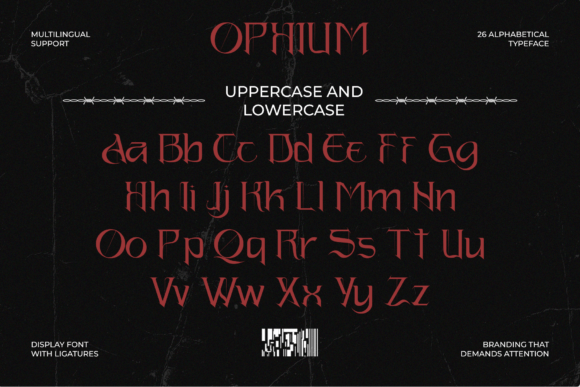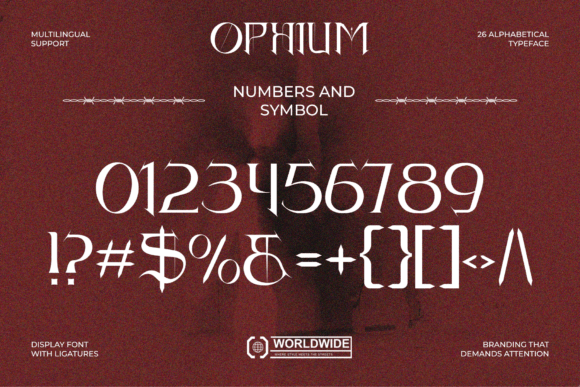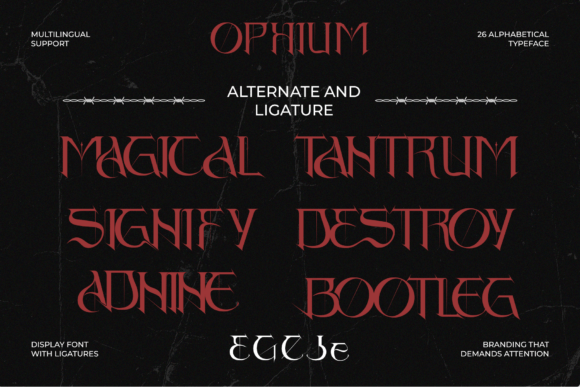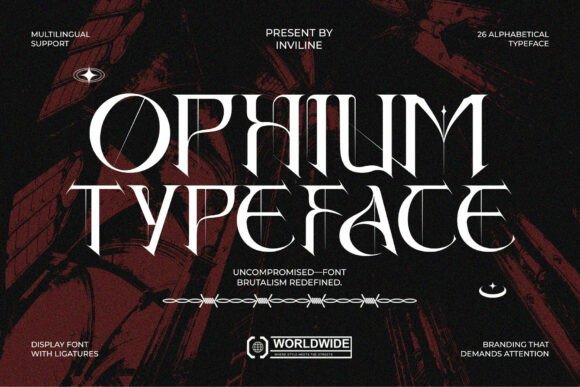
Introduction to Ophium Font
Ophium is a brutalist display typeface that fuses elegance with aggression.
With razor-sharp serifs, unique ligatures, and barbed wire energy, this font commands attention in every design Perfect for streetwear branding, metal music artwork, editorial layouts, and experimental posters.